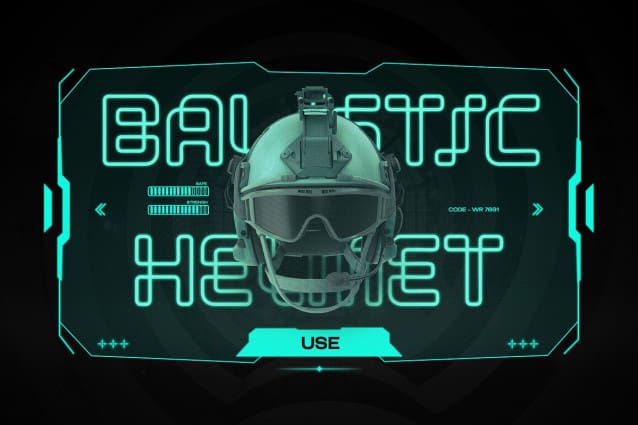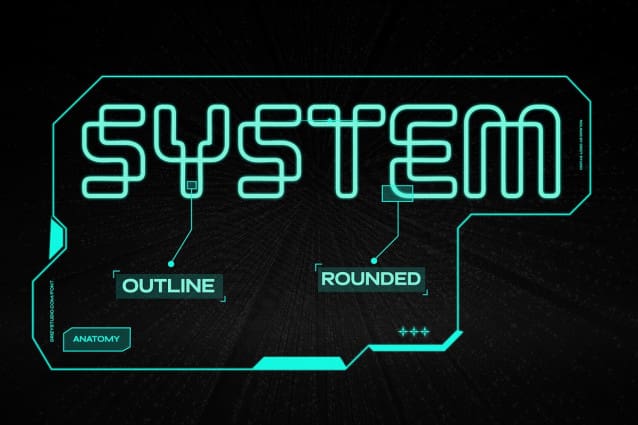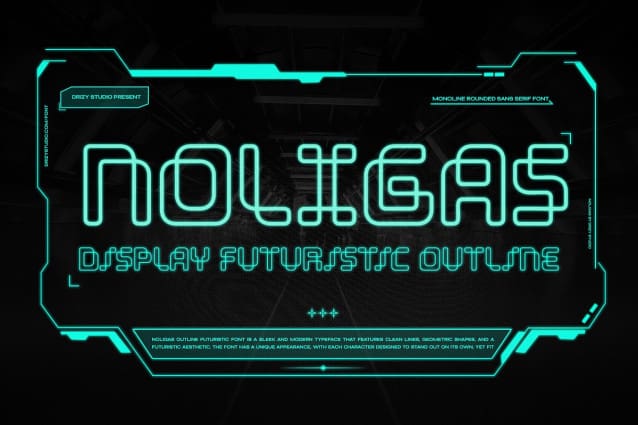
Noligas Futuristic Font
Noligas Futuristic Font is a Display Futuristic Outline Font from Drizy Studio. Step into the future of typography with Noligas Display – the sleek and futuristic outline font that will give your designs an edge.